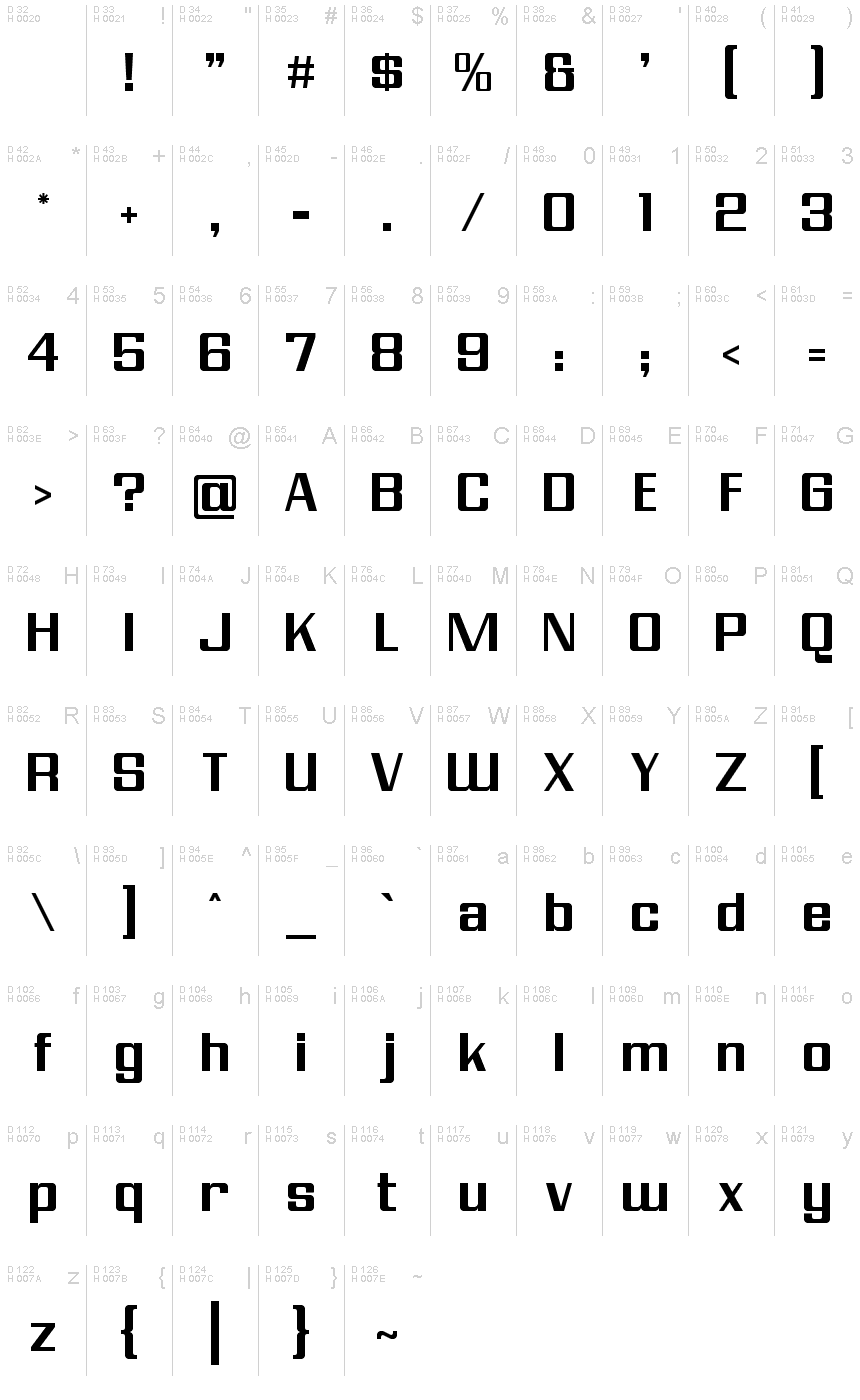
Modern Vision Regular
Based on The Terminator opening credits.
Designer description: Based on a typeface which was used in the opening credits of The Terminator, The Running Man, Class of 1999, and also used on Robert A. Heinlein's book covers (there's a font called Heinlein which is similar). I've been looking for the original for a long time but haven't found it, so I recreated it myself. (Edit: apparently it's called Bessellen)
Now updated to be closer to the original, plus added kerning.